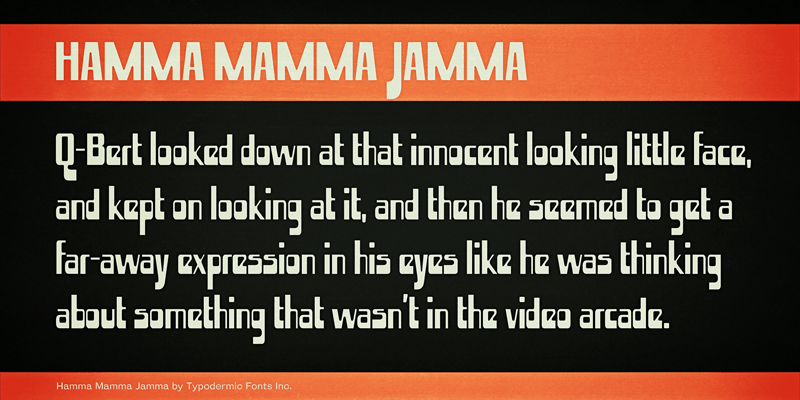
Hamma Mamma Jamma was inspired by funky smelling custom vans of the 1970’s. This font includes a license that allows free commercial use: sometimes referred to as a desktop license. This allows you to install the font on a computer and use it to create posters, web graphics, game graphics, t-shirts, videos, signs, logos and more. Read the license agreement for details. If you'd like to embed this font in an app, ebook, on the web or anything that's not covered by the desktop license agreement, visit the link below. You'll find distributors who offer different types of licenses or you can contact me for help. http://typodermicfonts.com/hamma-mamma-jamma/ |